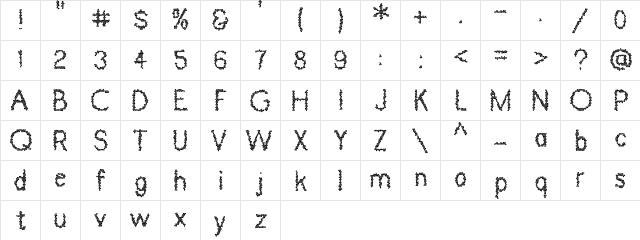
Dinosaur Skin Regular Font Preview
Dinosaur Skin Regular
Design Context for Dinosaur Skin Typeface
Dinosaur Skin takes a measured approach to typography — its balanced proportions and neutral character make it a reliable workhorse for both digital and print work.